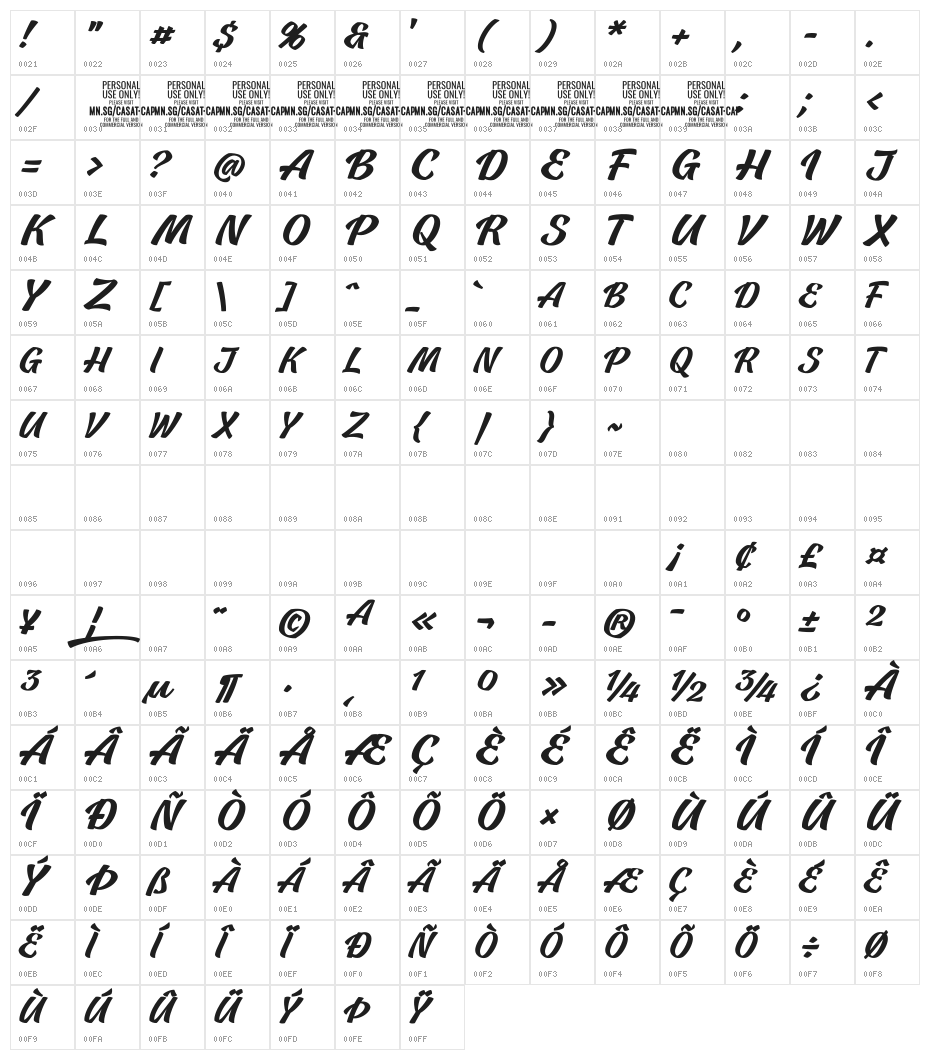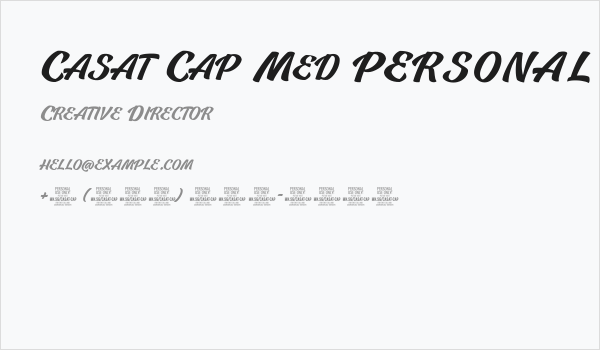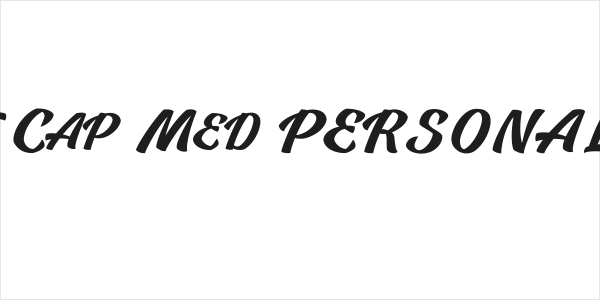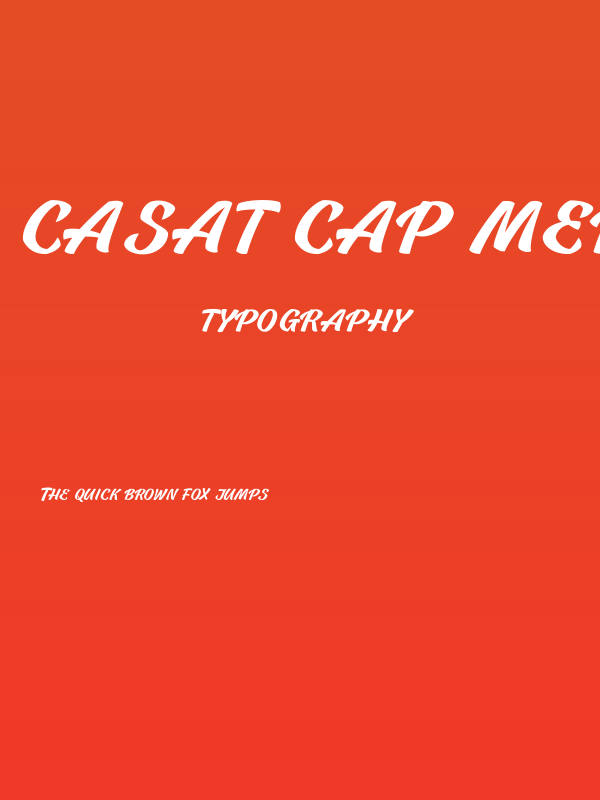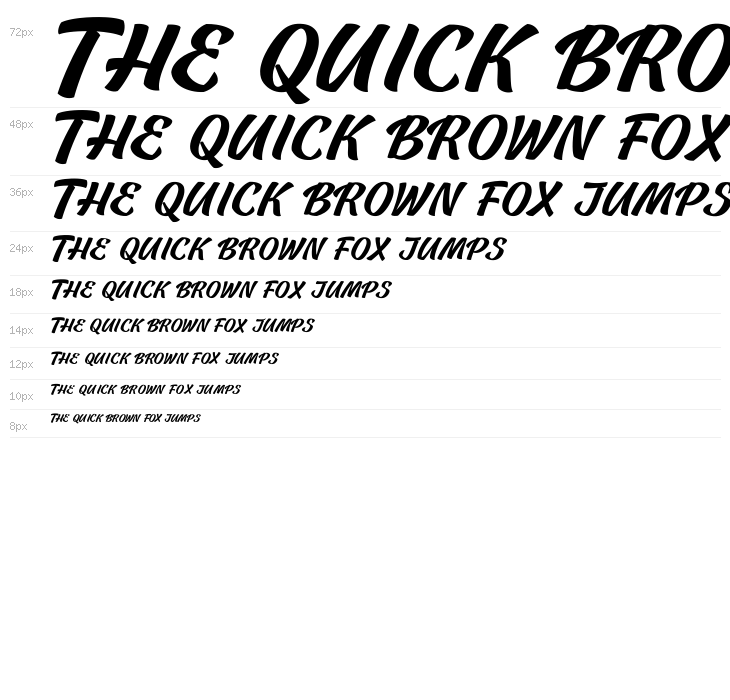
Casat Cap Med PERSONAL USE Font
Casat Cap Med PERSONAL USE Description
This font features a bold, cursive style with a dynamic and flowing appearance. The letters are slightly slanted, giving it an energetic and lively feel. The strokes are thick and consistent, providing a strong presence on the page. The uppercase and lowercase letters maintain a cohesive look, with smooth curves and sharp edges that enhance readability. The numerals and special characters are designed to match the overall style, ensuring a uniform look across different text elements. This font is ideal for making a statement with its eye-catching and stylish design.